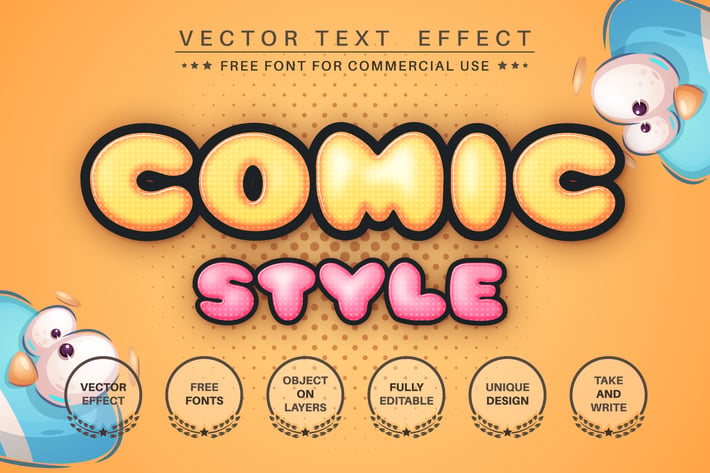
Humor comic - editable text effect font style
Hello! I'm happy to introduce my new text effect "Comic Bubbles". Just write your word and the effect will apply!. Be as creative as you like to be in expressing yourself using this unique “Comic Bubbles”. Effect is perfect for any project that needs a unique handy touch whatever else your imagination leads you to!